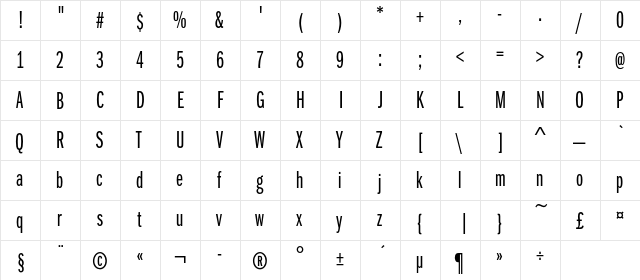
FranklinGothicBookXCmpC Regular
Design Context for FranklinGothicBookXCmpC Typeface
FranklinGothicBookXCmpC has the quiet confidence of well-executed sans-serif typography: versatile, unobtrusive, and dependable at any size.
Font Pairing: Works well alongside a characterful serif or display font that can carry the expressive load while FranklinGothicBookXCmpC handles the functional copy.
Pro Tip: Pair FranklinGothicBookXCmpC with a display or serif font for headlines — its neutral character makes it an excellent supporting player in complex typographic systems.